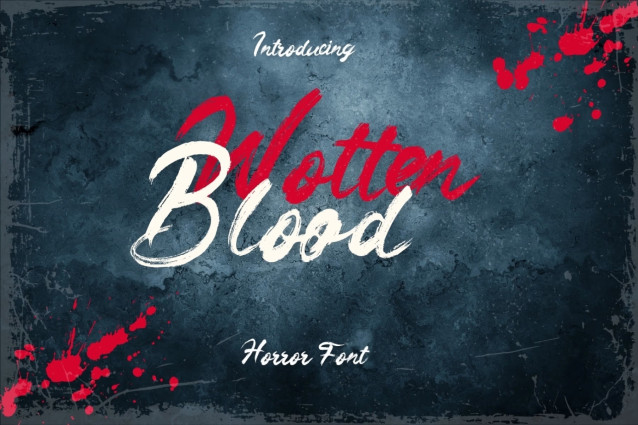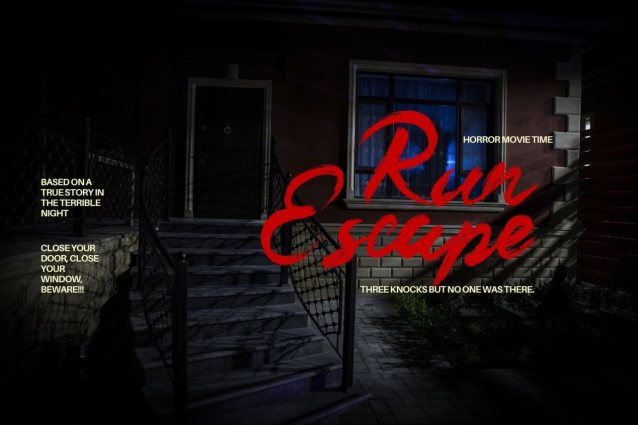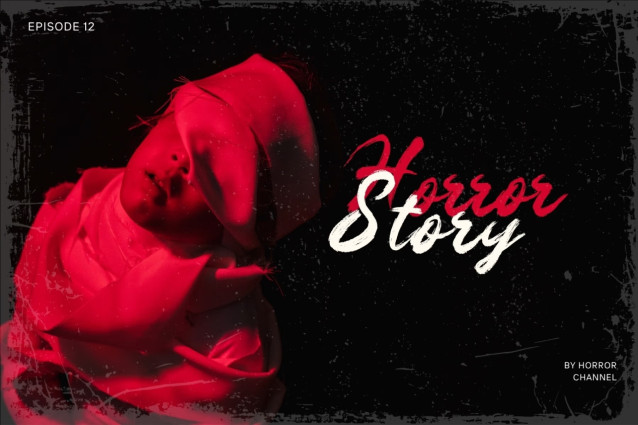
Introducing **Wotten Blood – Horror Brush Font**
Wotten Blood – Horror Brush Font which has a hand lettering brush style. So it looks natural like a handmade. This texture is very detailed. This font is suitable for logos, product branding, printable templates or for text overlay to any background image, also suitable for use in title design. Such as apparel, invitations, books tittle, stationery design, quotes, branding, greeting card, t-shirt, packaging design, poster and more!